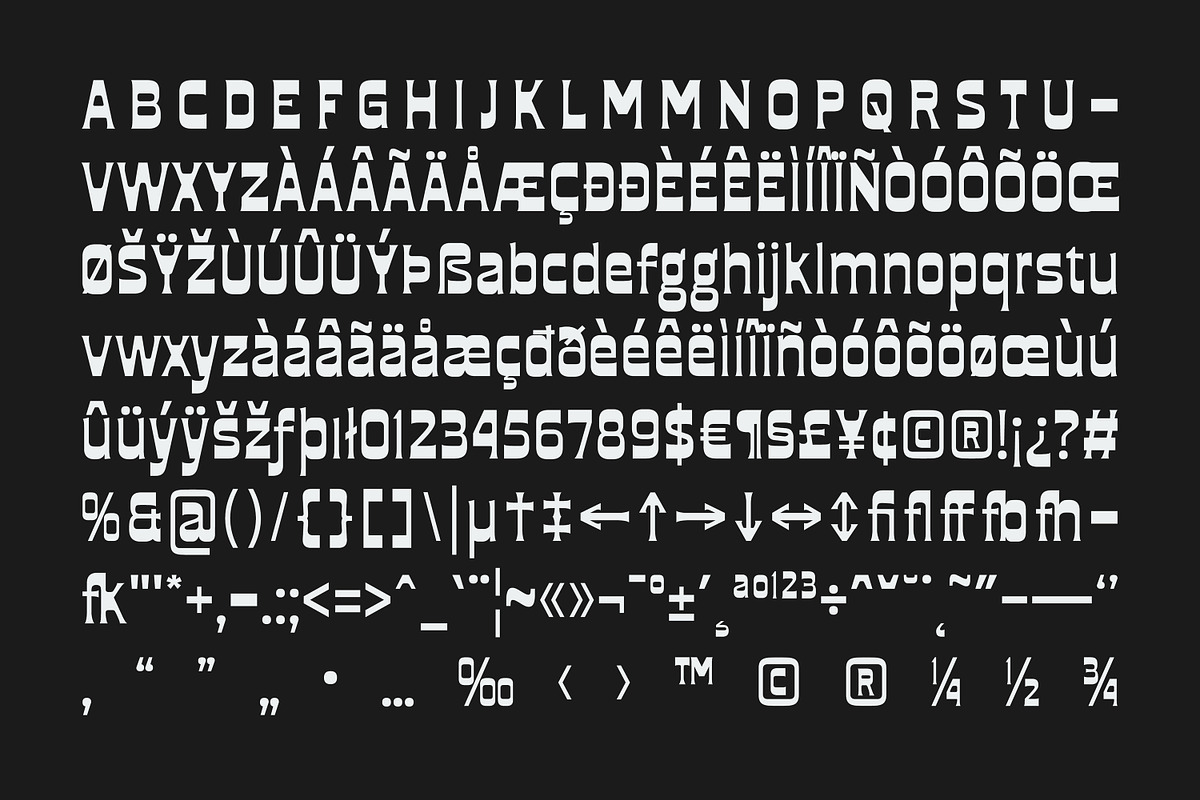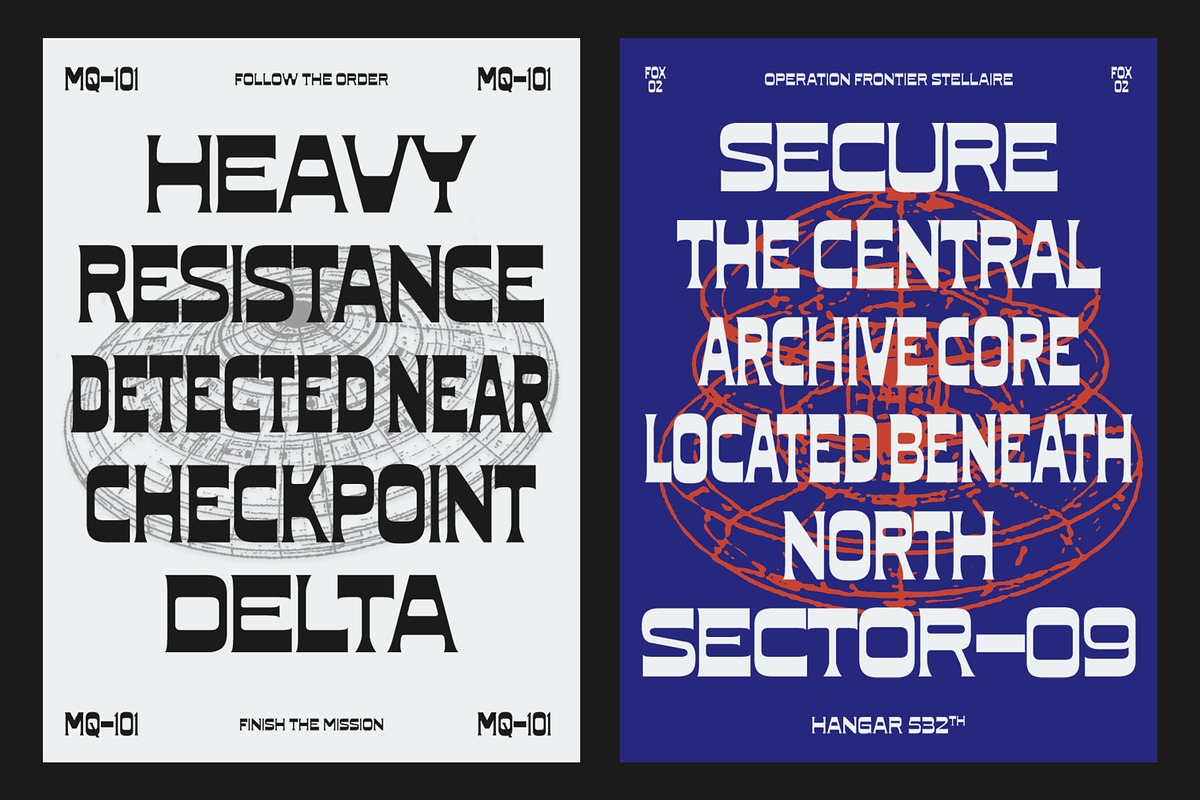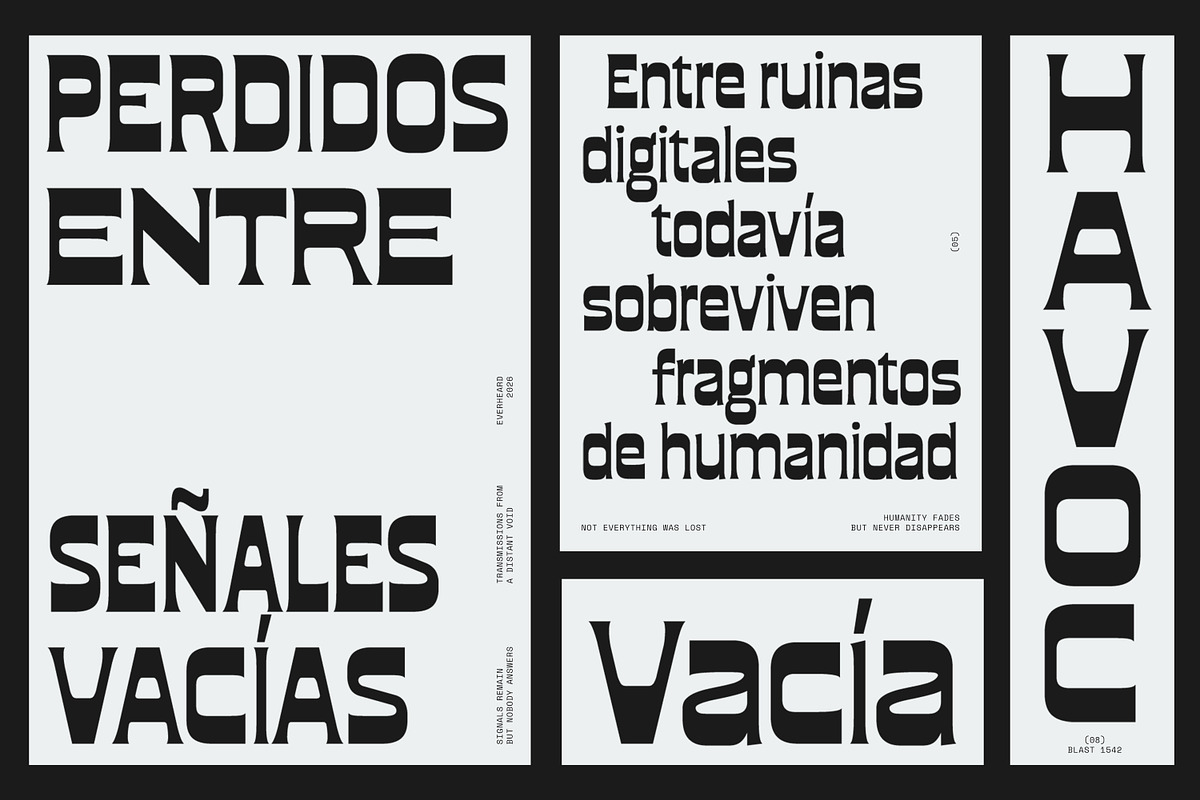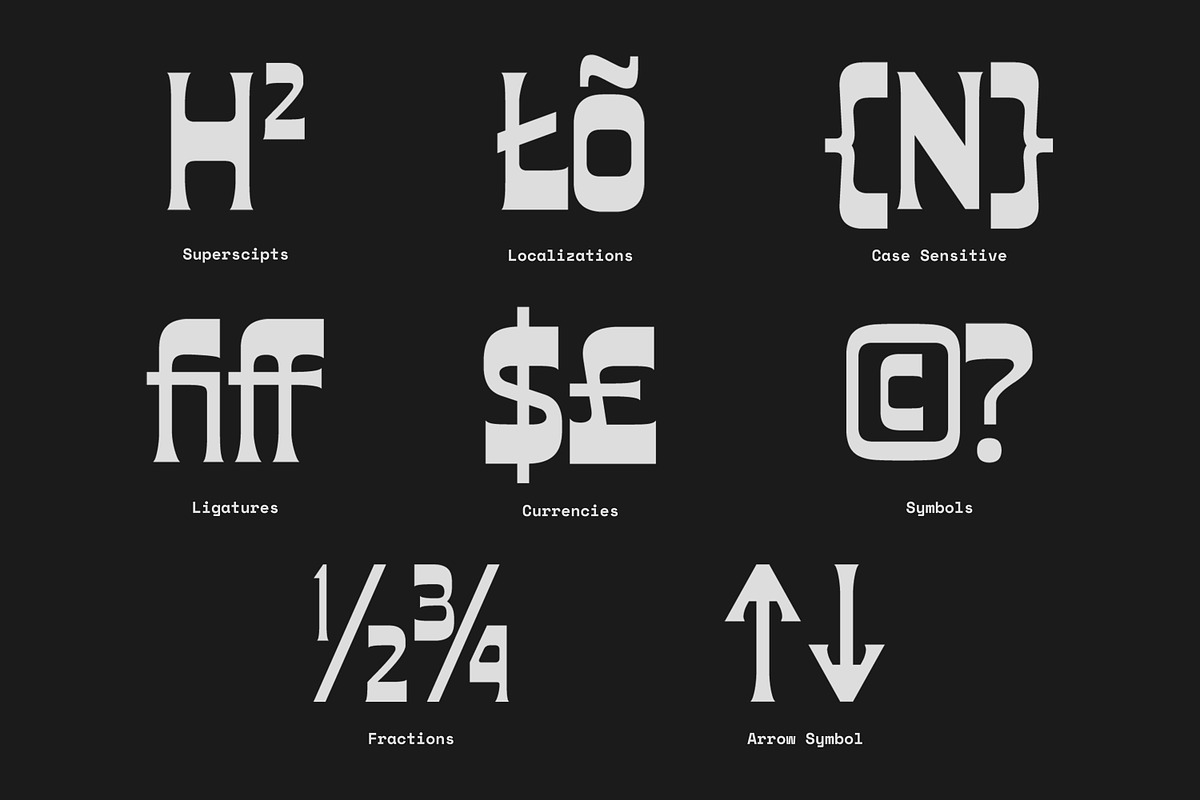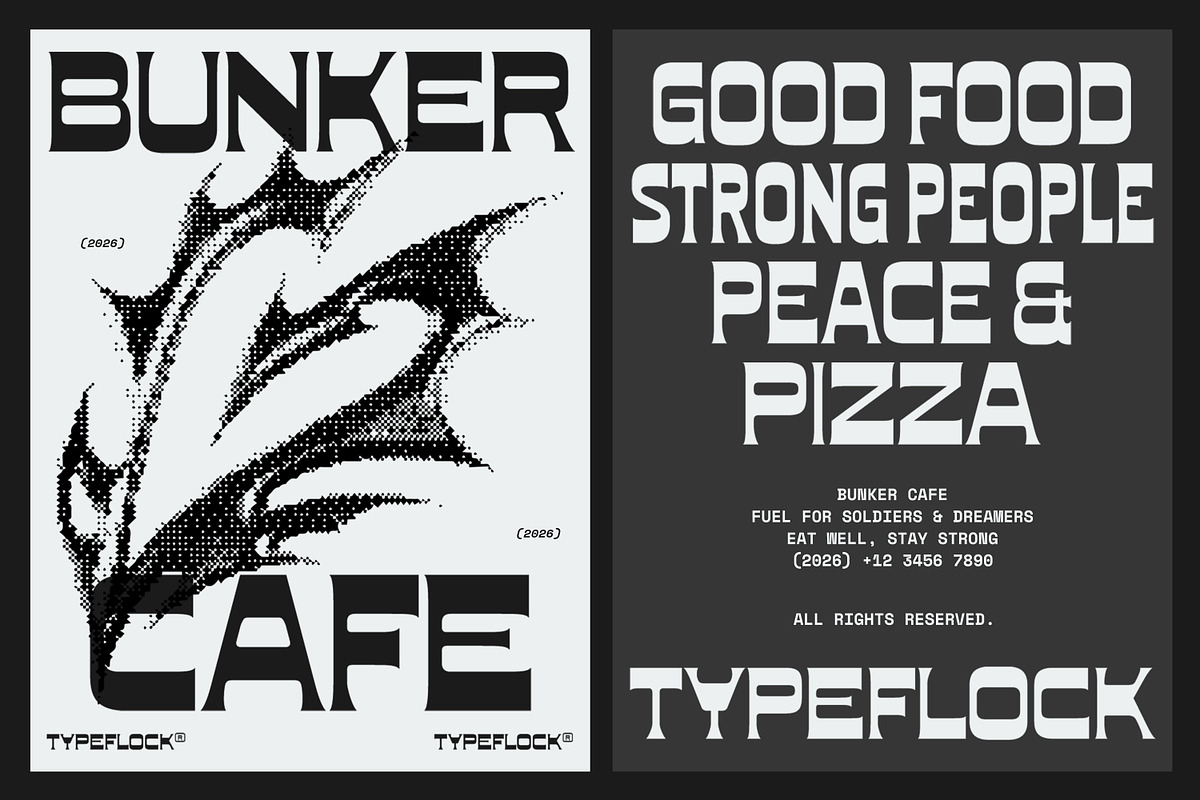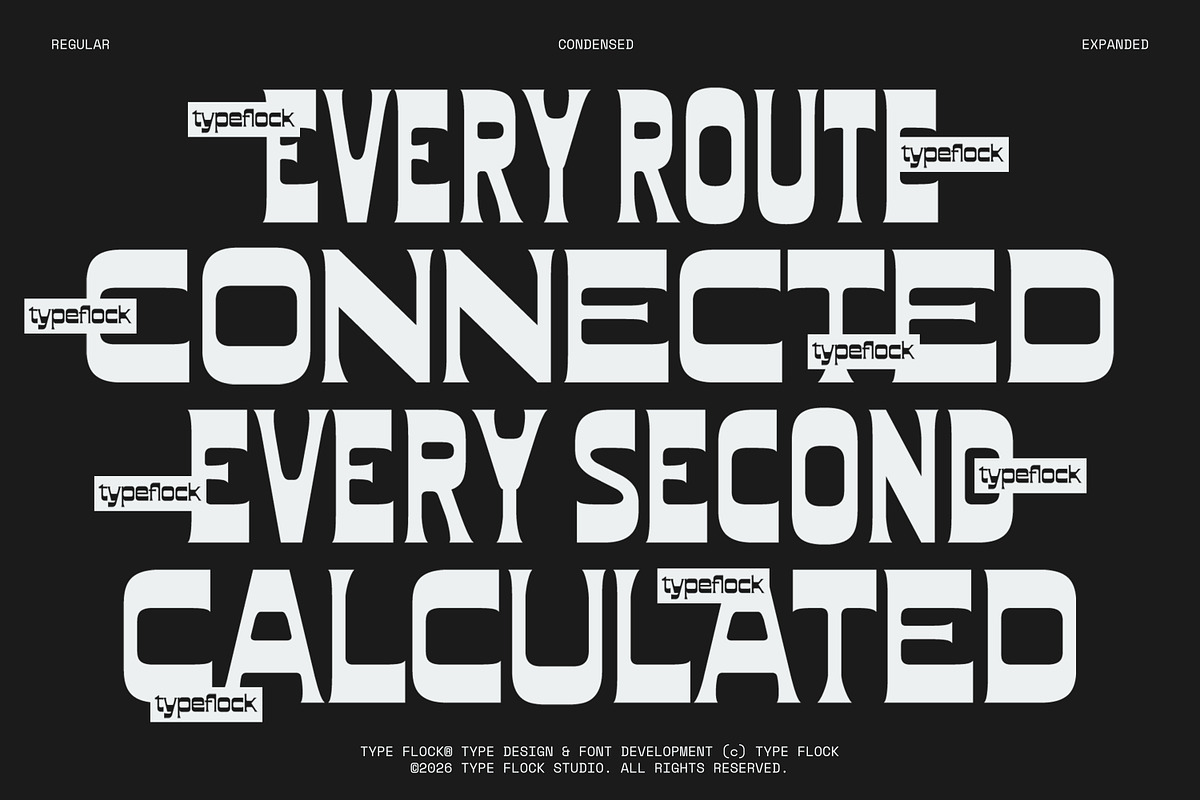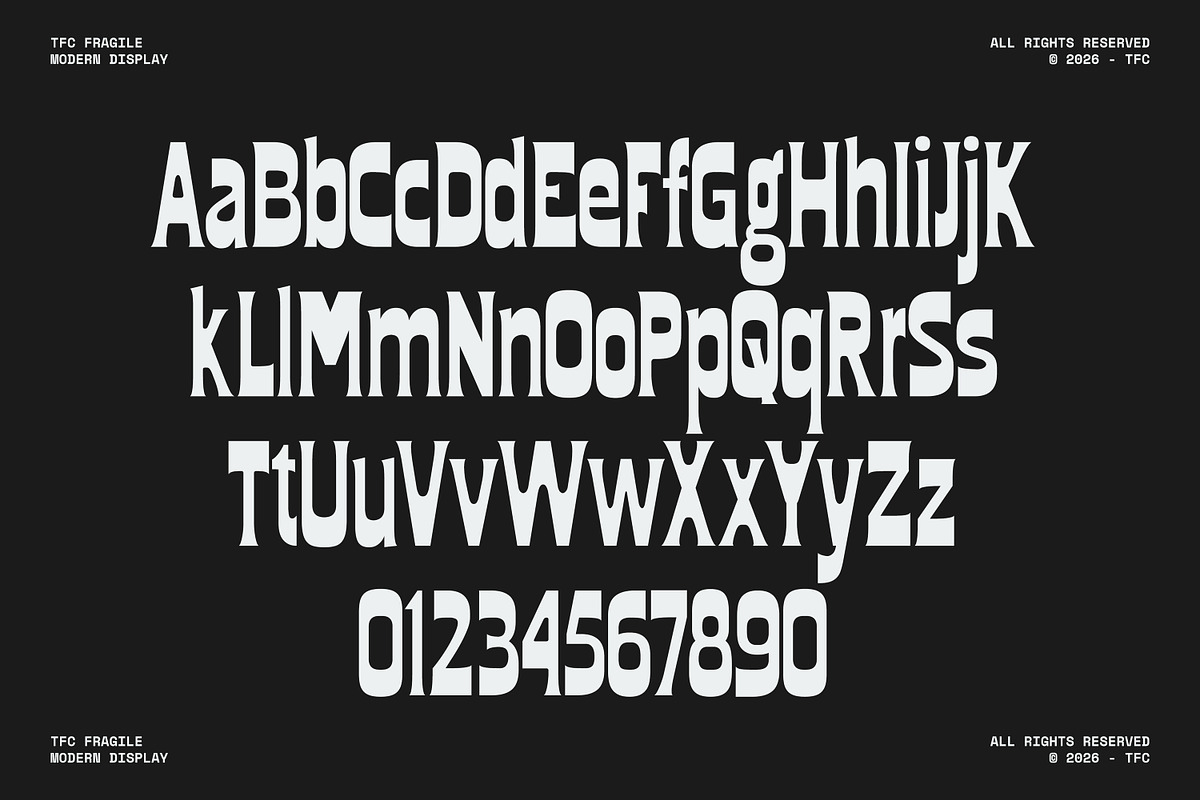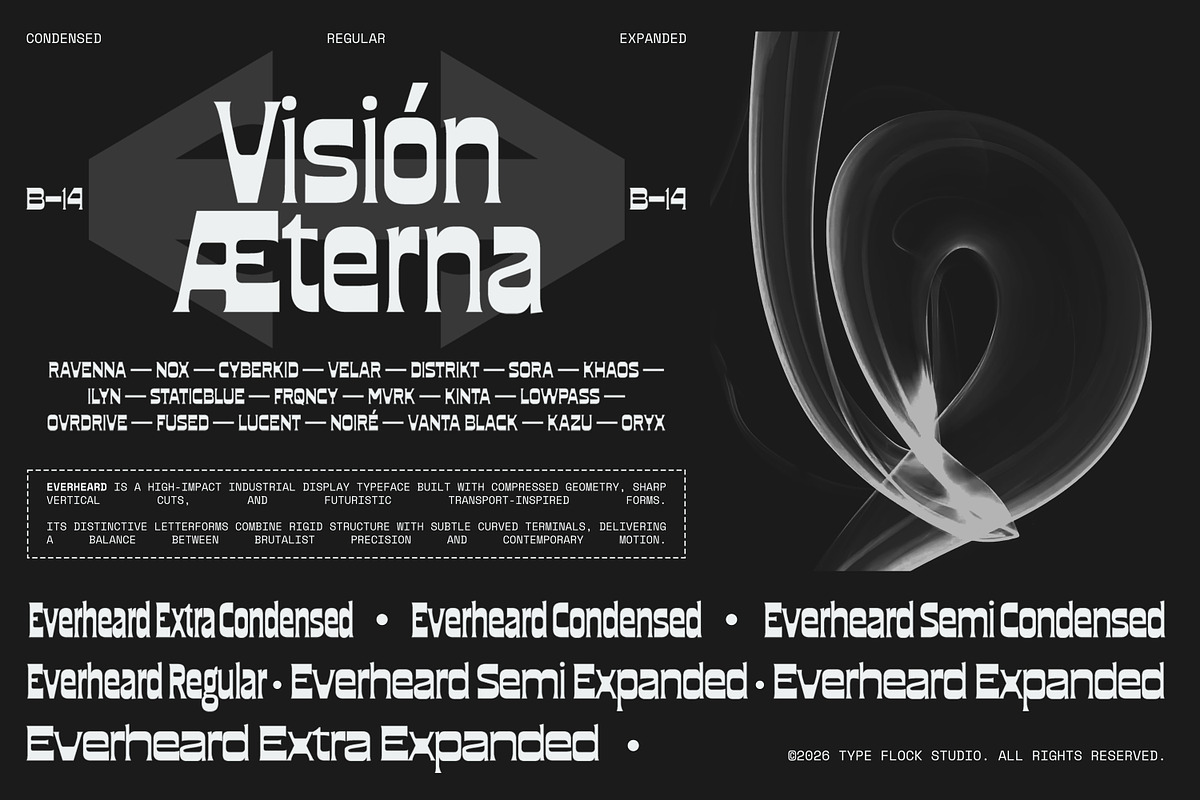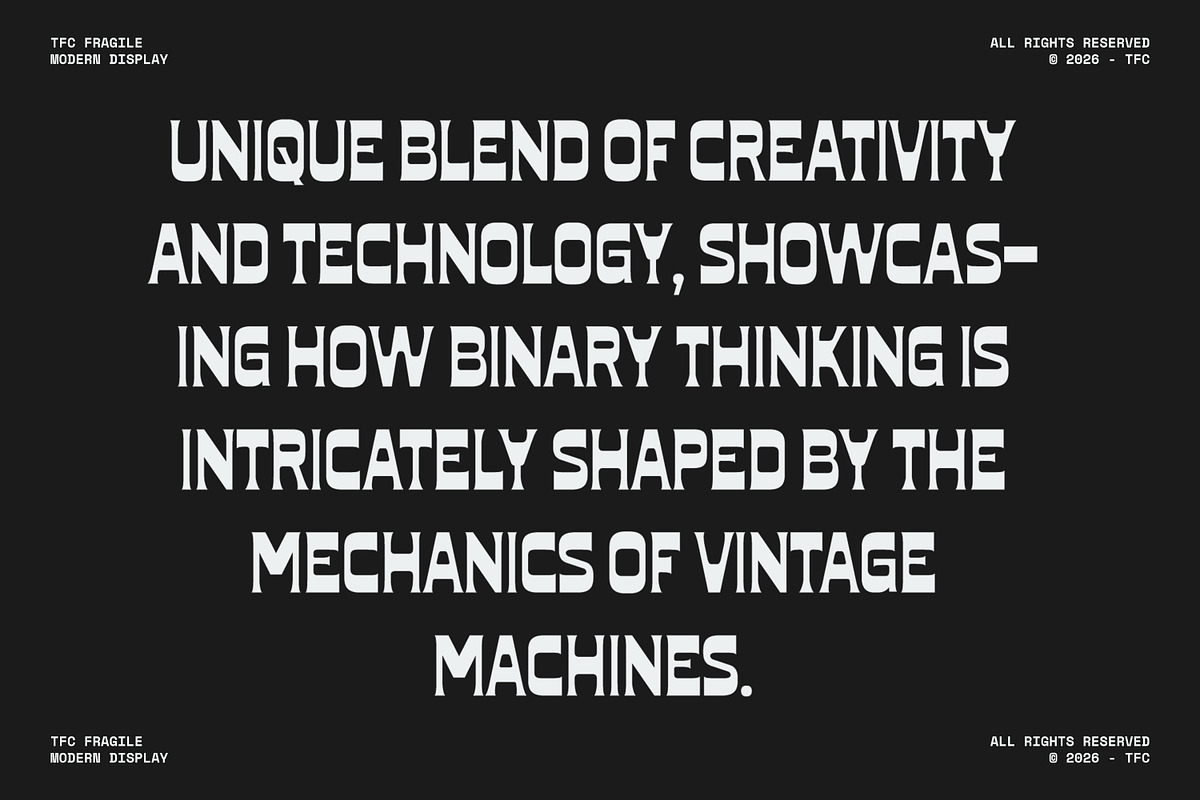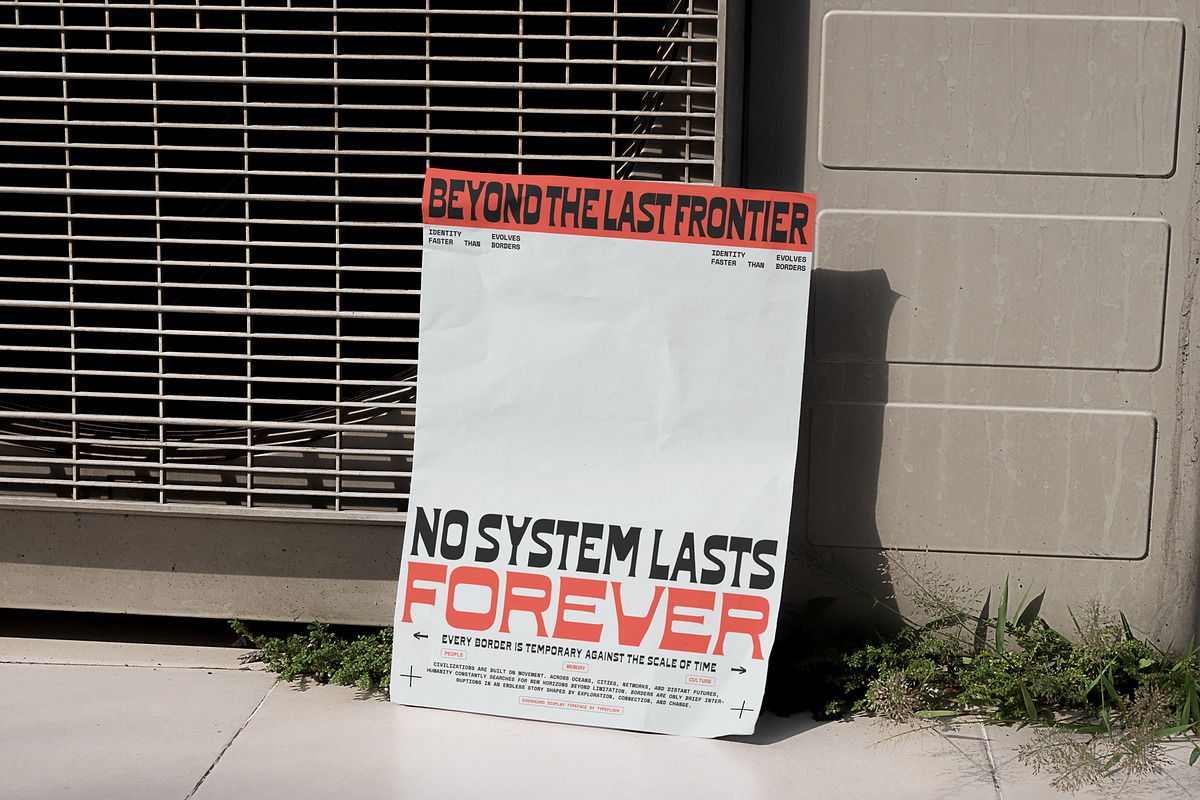
TFC Fragile Font
TFC Fragile — Width Under Tension
TFC Fragile is an industrial-class display typeface developed by Type Flock Studio. It is built around a width-axis system rather than a traditional weight scale, giving designers precise typographic control while keeping one unified visual identity. The letterforms use compressed geometric structures, sharp vertical cuts, and softened counter terminals. This creates a clear tension between mechanical rigidity and organic motion. Its visual language draws from industrial transport design, brutalist architecture, and contemporary street culture, making TFC Fragile well suited to bold display typography across editorial, branding, motion, signage, and interface-led work.
Family Structure — 7 Widths
Extra Condensed
Condensed
Semi Condensed
Semi Expanded
Expanded
Extra Expanded
Language Support
20+ languages including Western European, Central European, and extended diacritic sets.
Applications
Editorial design
Music & culture branding
Motion & broadcast titles
Poster campaigns
Signage
Product identity
Gaming & esports UI